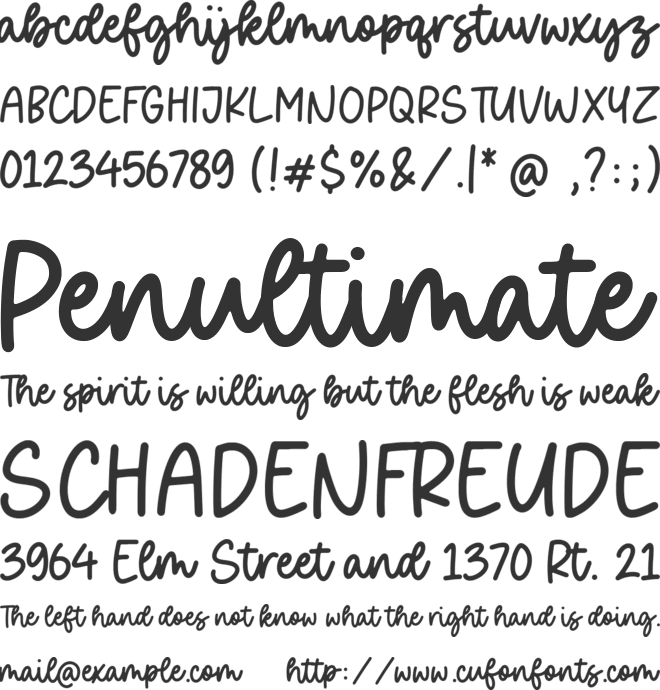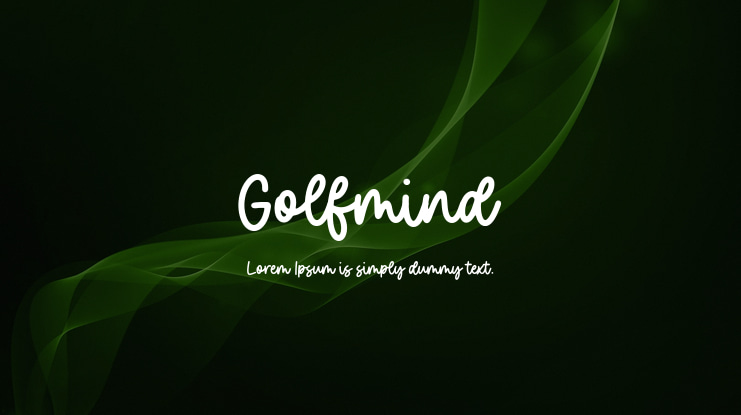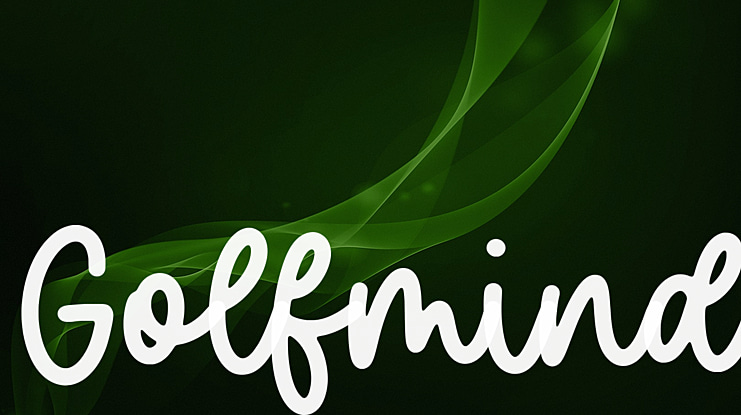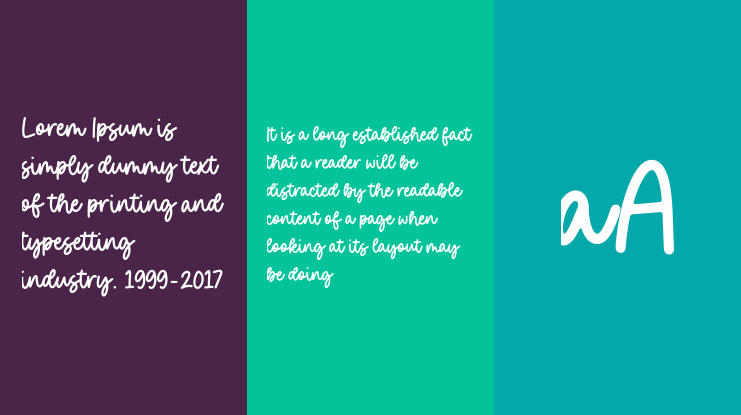
Golfmind Font
Golfmind is a handwritten font created with great care and specially created for you ????
Golfmind is perfect for product packaging, branding project, magazines, social media, weddings, or just used to express words above the background.